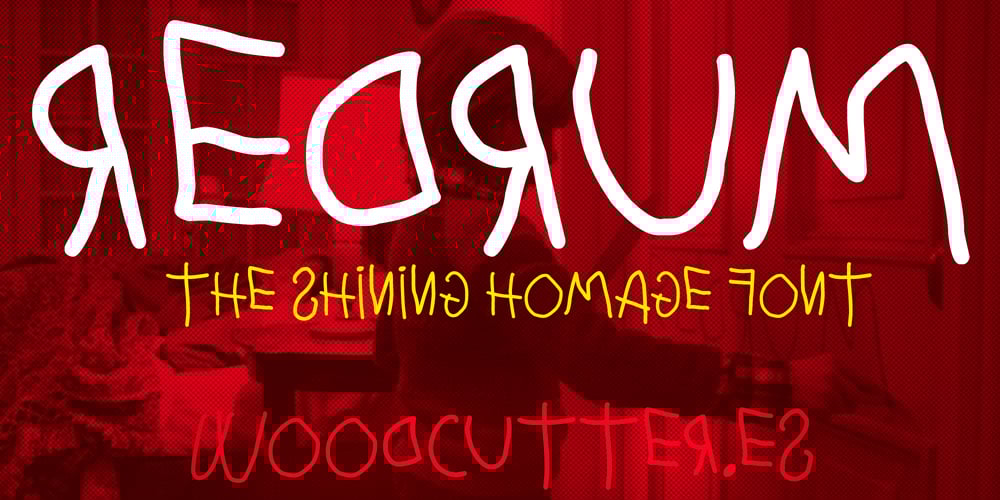
Redrum
Redrum font
Redrum Font Family was designed by Jordi Manero and published by Woodcutter. Redrum contains 1 styles and family package options. “Redrum” is an uppercase typeface that pays tribute to the iconic movie The Shining. Its letters, seemingly hand-drawn like a child’s erratic scribble, create an unsettling and disturbing atmosphere. The shapes are irregular and misaligned, conveying a sense of chaos and suspense. It includes accents that maintain the unbalanced aesthetic, making it perfect for horror-themed projects, posters, or striking titles. Its childish yet sinister appearance captures the chilling essence of the film, making it a unique and memorable font for designs with a touch of madness.